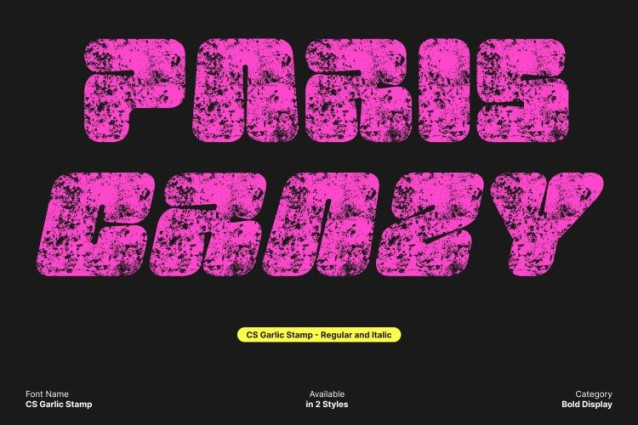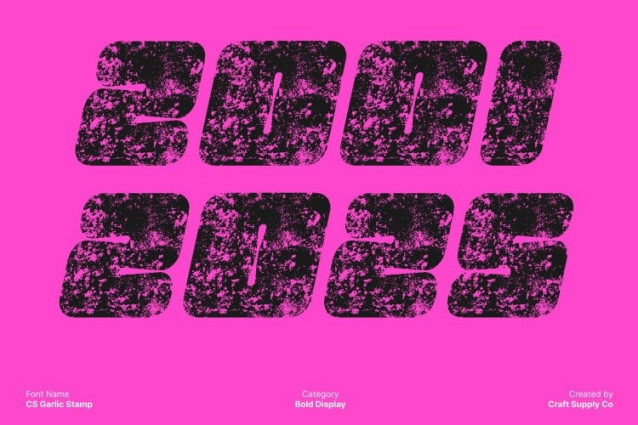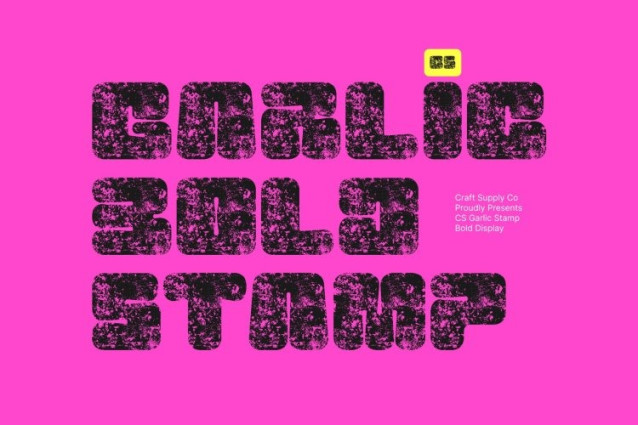
CS Garlic Stamp Font
CS Garlic Stamp Font This is designed to dominate the visual space. With its thick, sturdy, and blocky letterforms, this display font delivers powerful presence and undeniable impact. Every character feels strong and confident, making it ideal for posters, headlines, and branding that must be seen and remembered.
Striking Style for Attention-Grabbing Designs
Built for bold communication, transforms titles into commanding statements. Its geometric, robust shapes create a sense of stability and authority, ensuring your message stands out no matter the medium. Perfect for designs that need intensity, strength, and visual boldness.
Vintage Character Through Stamp Texture
The added stamp effect introduces a rugged, worn-in texture that elevates the font’s bold structure. This subtle vintage touch softens the blocky forms with handcrafted charm, giving your designs depth, warmth, and a uniquely tactile personality. The blend of firmness and texture creates a balanced, artistic look.
Ideal for Posters, Headlines, and Strong Branding
From event posters to product packaging and editorial titles, adapts seamlessly to any project requiring bold display typography. Its combination of solid weight and vintage texture makes it suitable for both modern and retro-inspired visuals, offering designers a font that is powerful, expressive, and memorable.